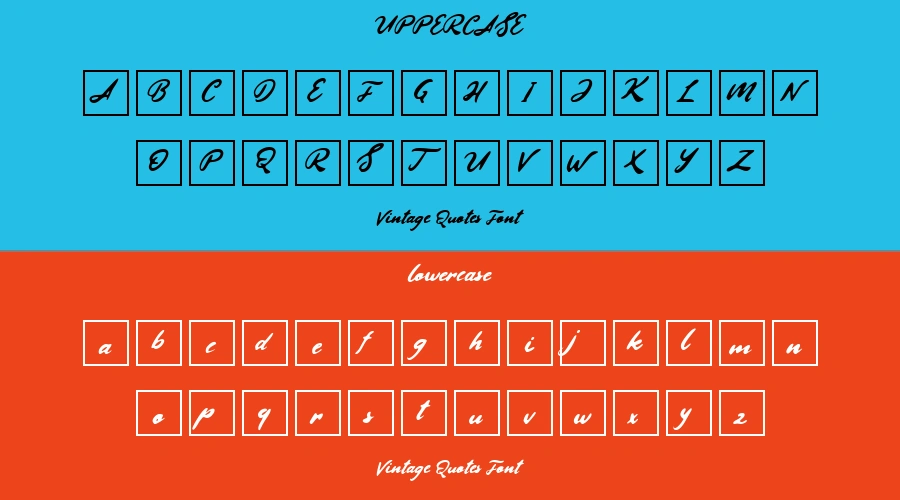
About Vintage Quotes Font
Vintage Quotes Font embodies typographic excellence through its masterful combination of circular bowls and artistic impact. Created for branding projects, this typeface delivers exceptional versatility and creative potential across all applications. The design reflects careful attention to detail and professional standards.
Advanced capabilities include distinctive impactful forms and versatile inferior figures, giving designers creative control. When used in exhibition materials, Vintage Quotes Font exhibits remarkable detail retention. The harmonious balance between x-height and cultural context sets this typeface apart.